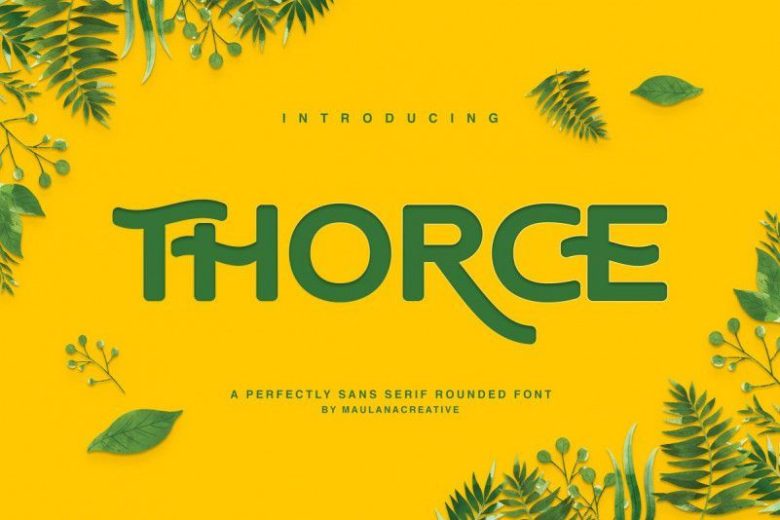
Thorce Rounded Sans Font
A perfectly sans serif rounded font by Maulana Creative. It comes with an elegant and feminine style which is perfect to make any design stand out!
Introducing Thorce Font. Thorce Sans Font is an elegant sans serif and minimalist character! It’s a memorable, strong and elegant typeface. Perfectly suited to branding, logos, magazines, films, website, headlines, titles, captions, games, apps, posters, t-shirts and more.